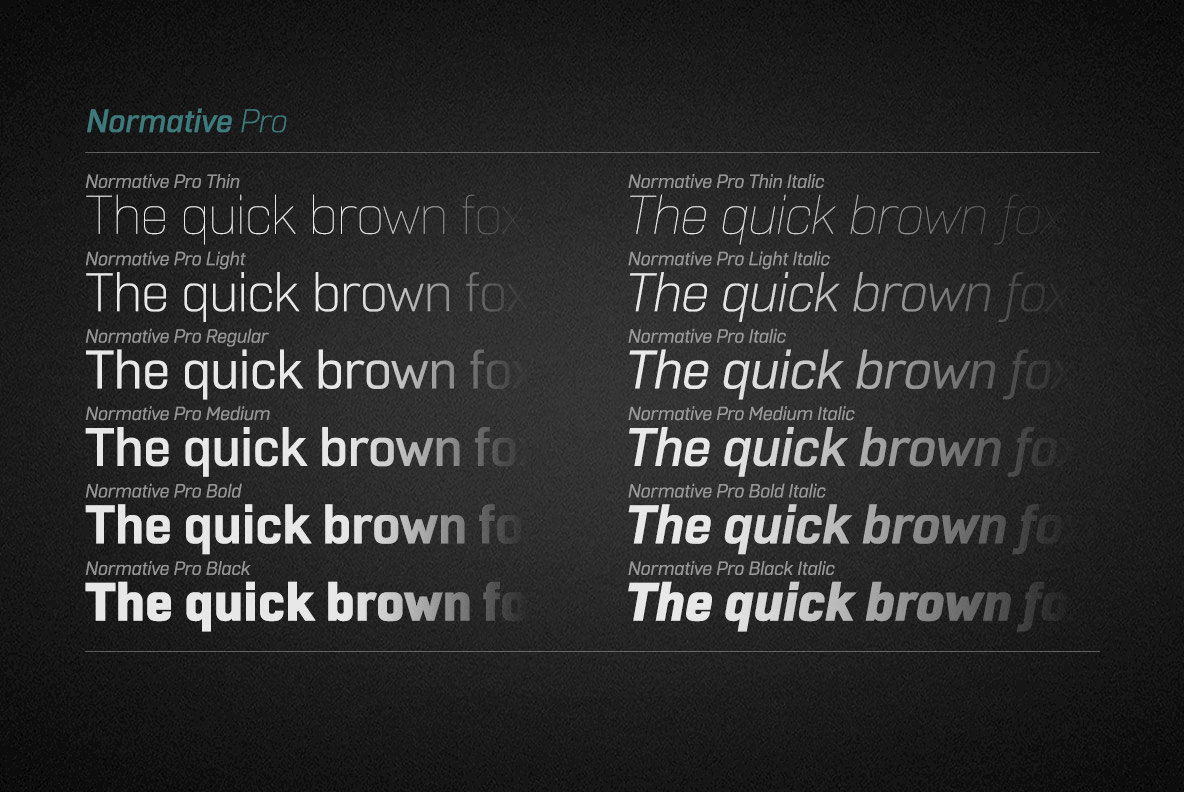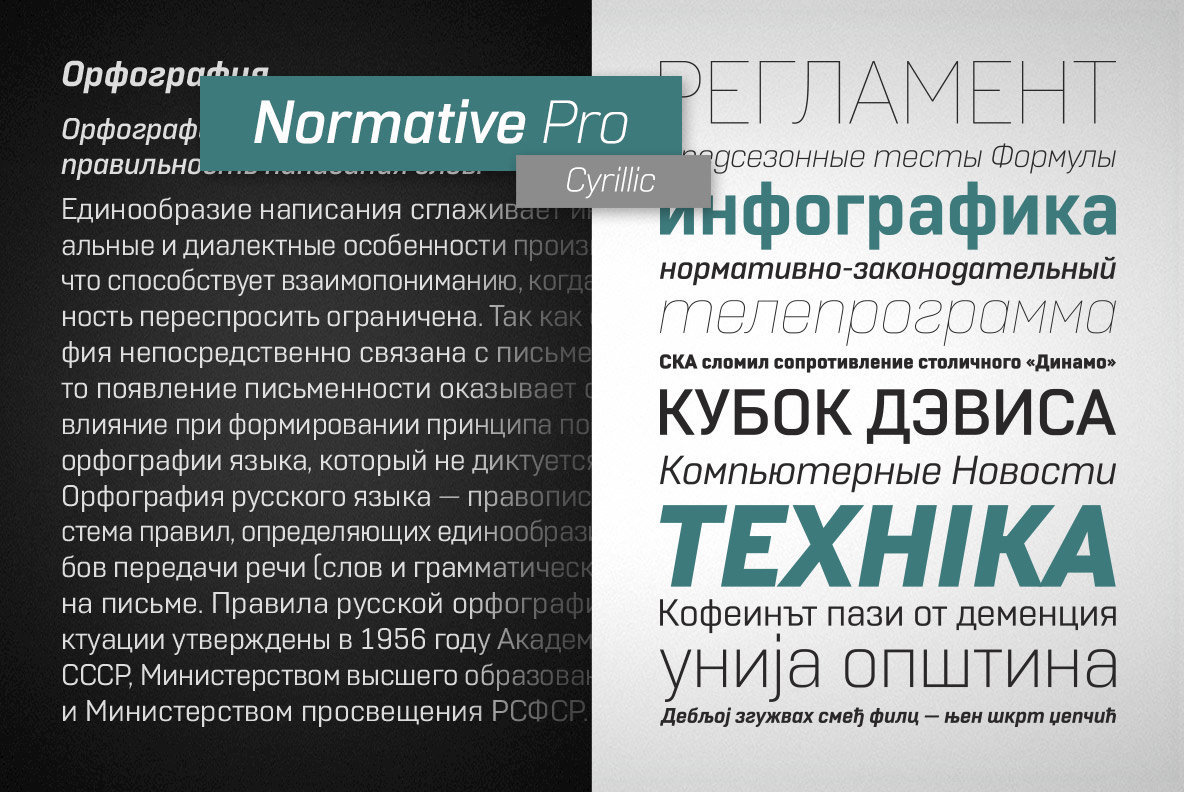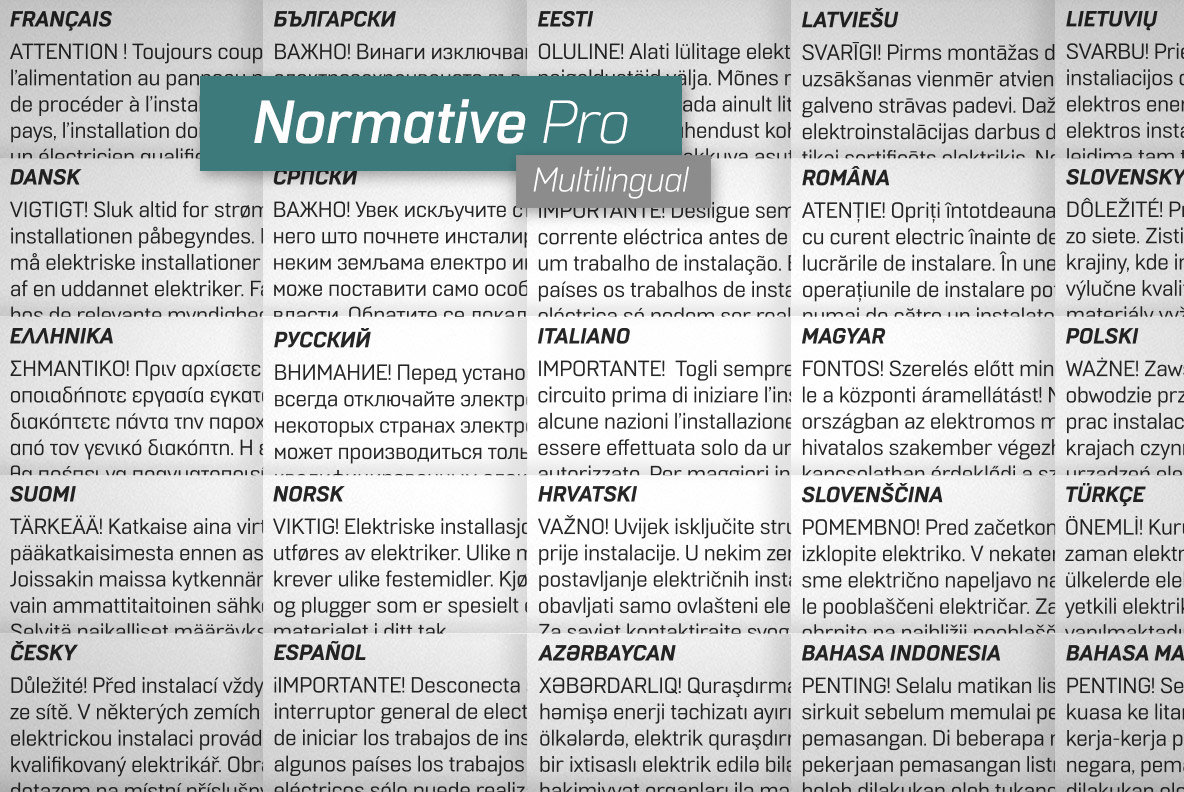
Normative Pro Font
Normative Pro is a sans-serif font family includes a 12 styles (6 weight and italics), support Latin, Cyrillic, Greek, Eastern European, Baltic and Turkish scripts. The family uses a large number of useful OpenType features: small caps, contextual alternates, stylistic alternates, fractions, proportional and tabular figures and more.
Normative Pro is font with wide sphere of application, legible from very small size to very large ones. Can be used both in technical documentation, office work, business communication, as well as in advertising, visual communication, magazines and posters, in branding and packaging.